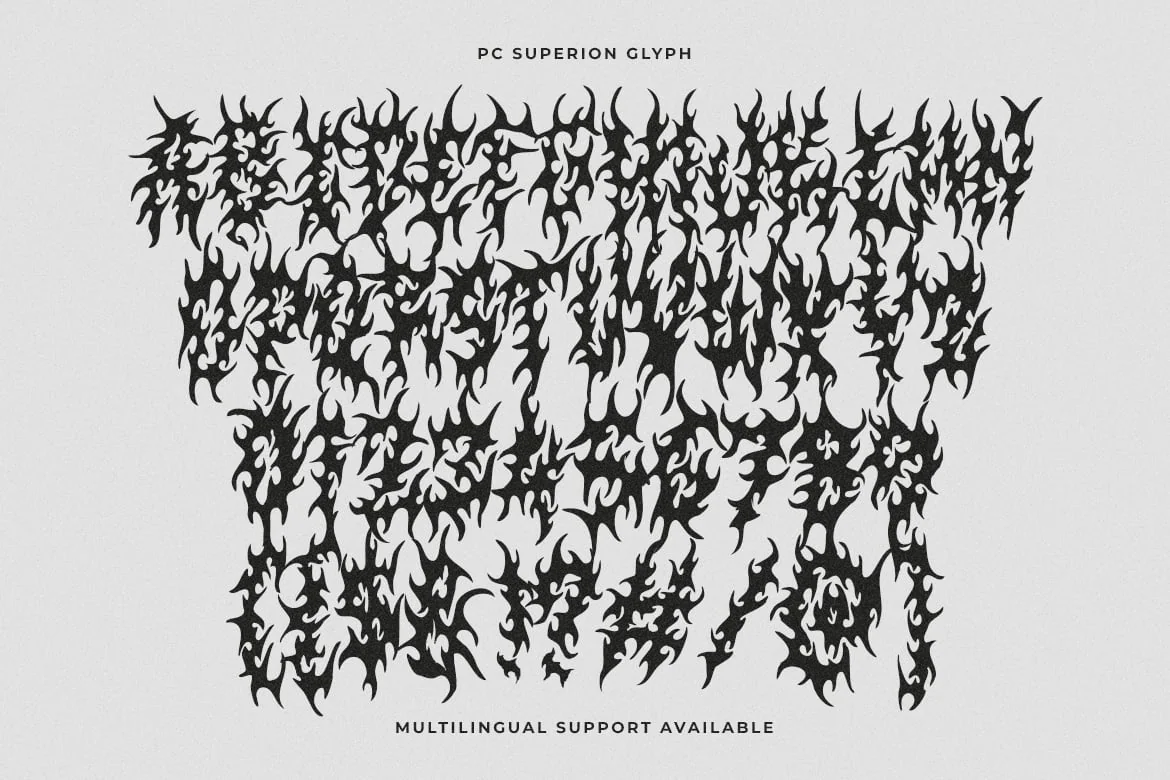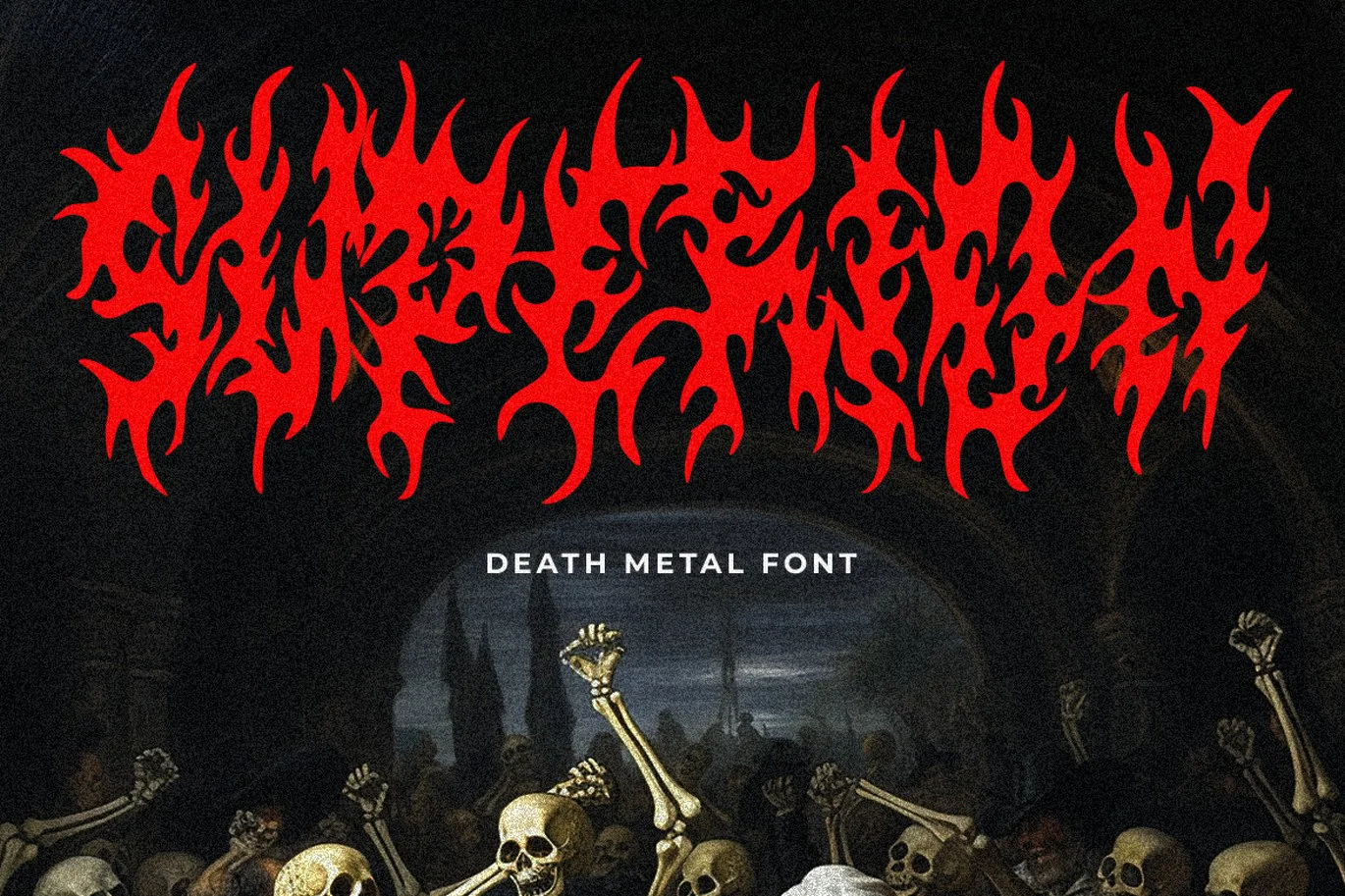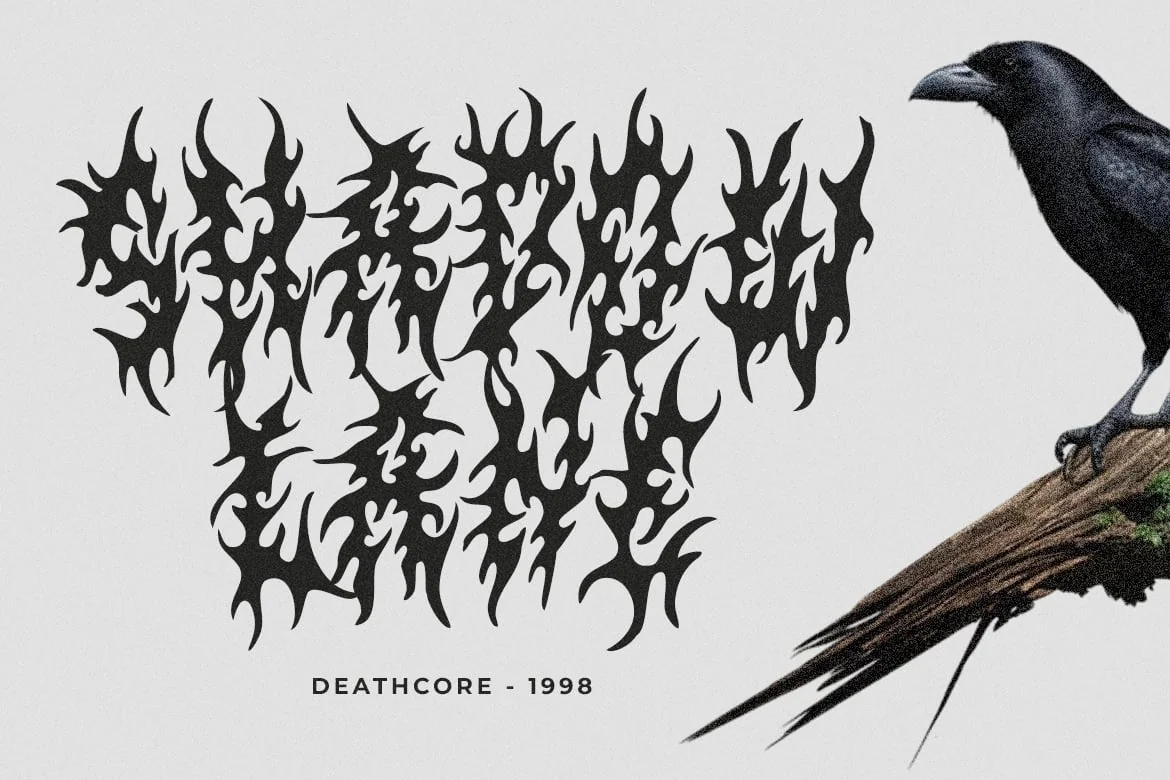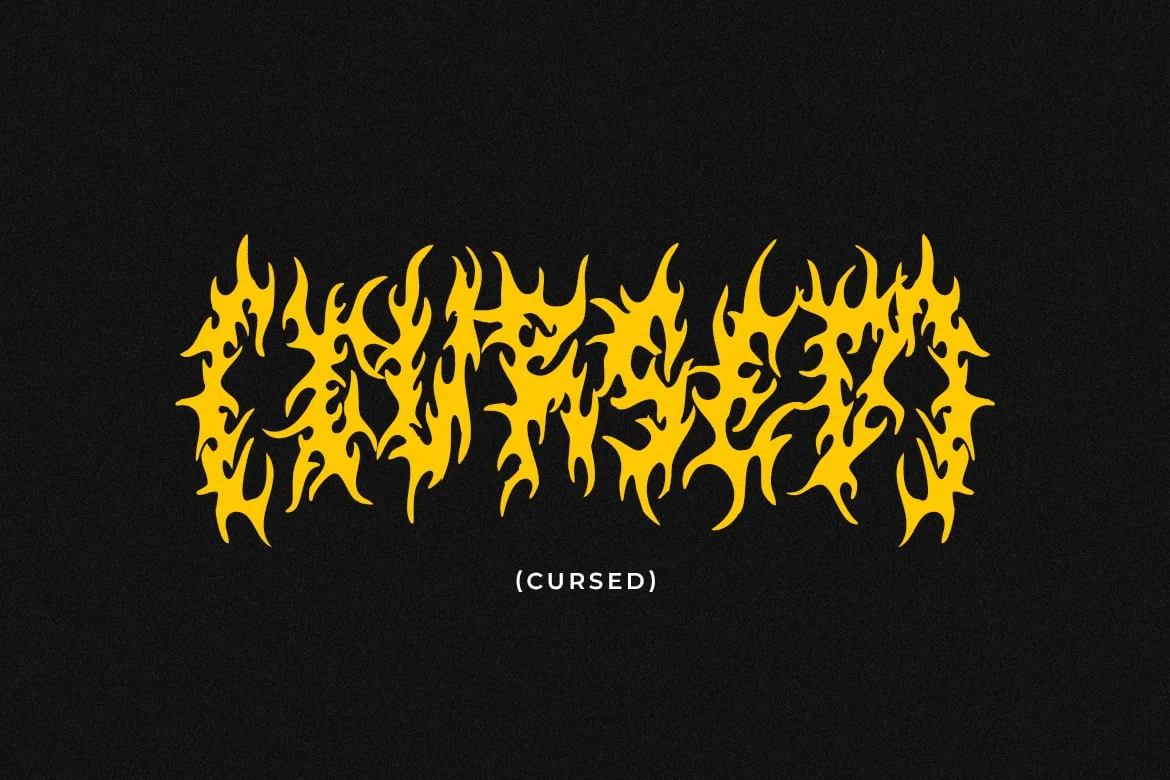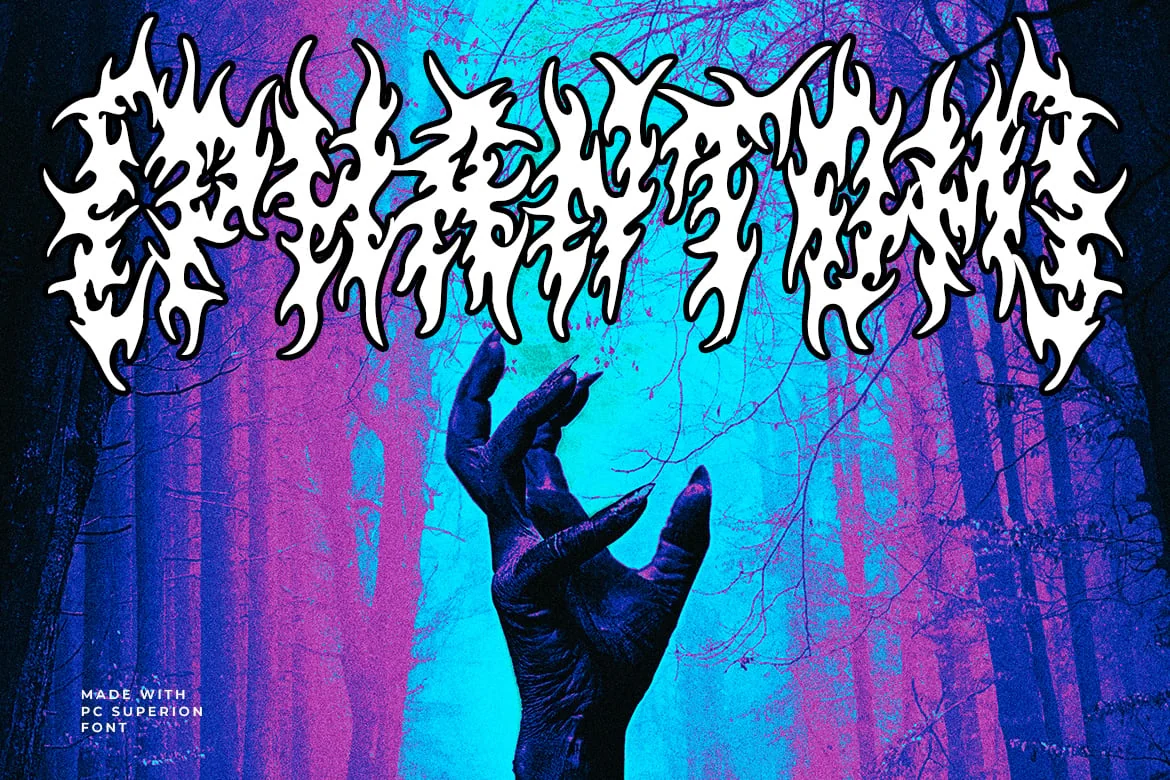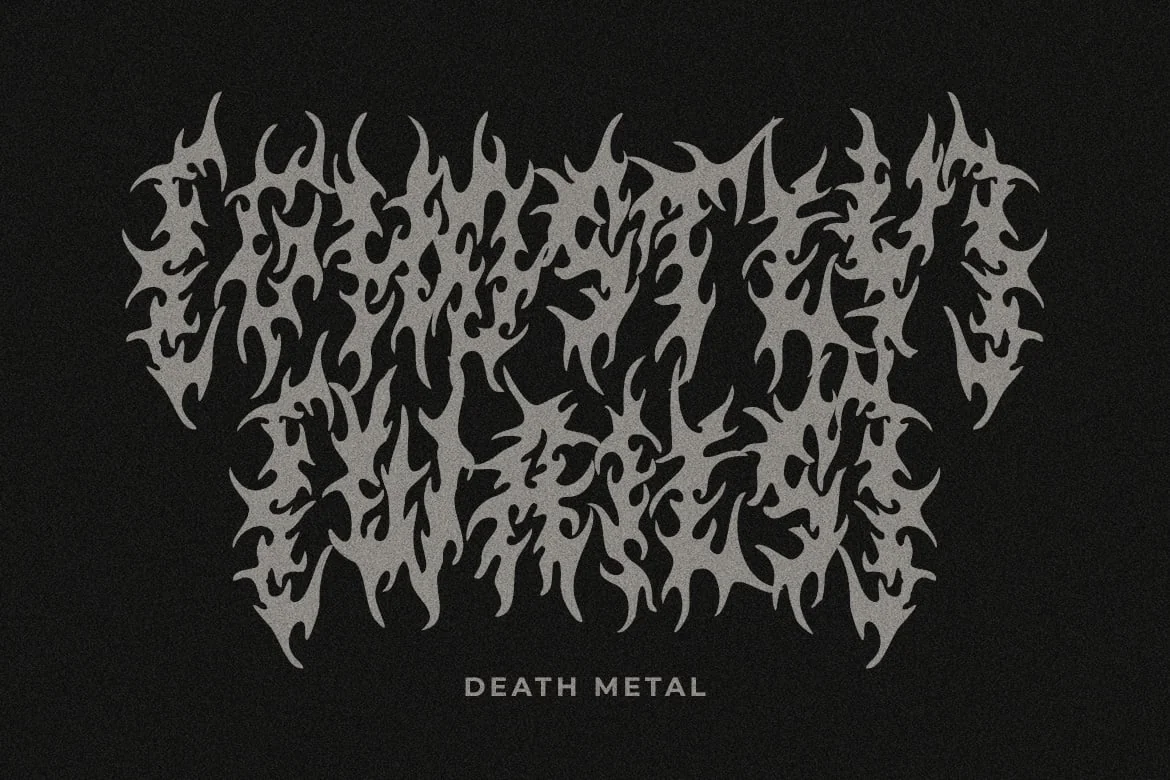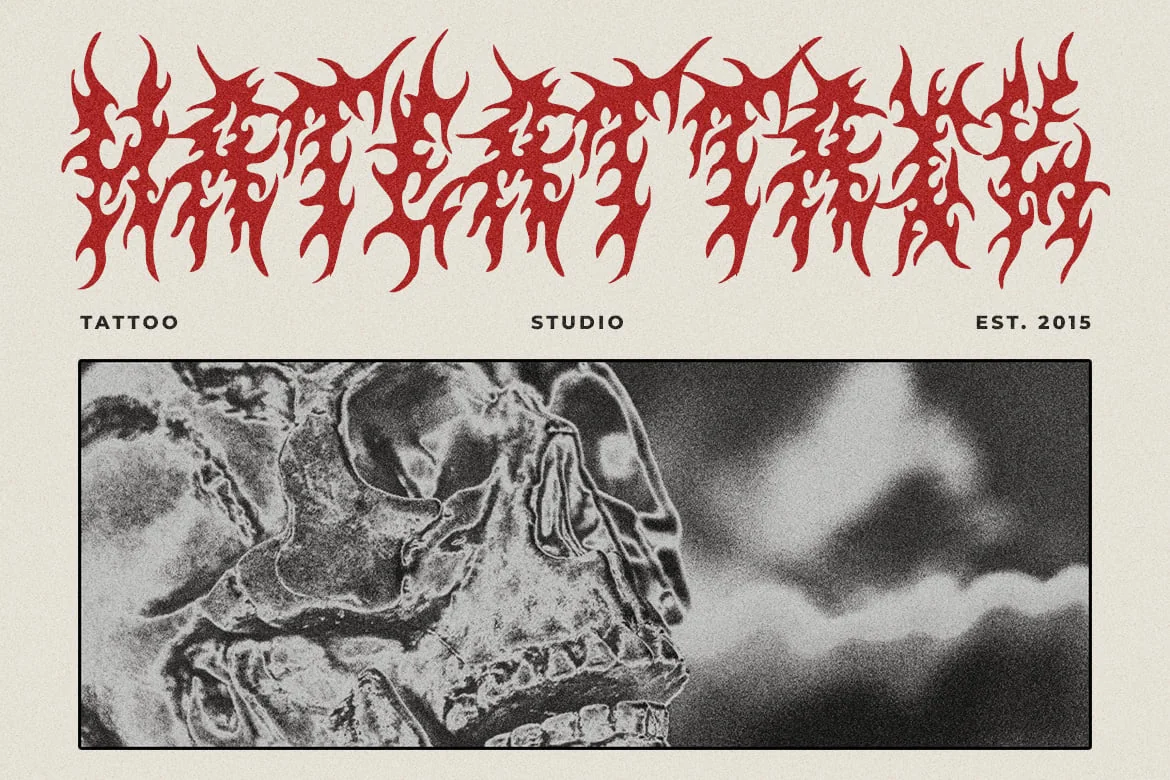
PC Superion – Death Metal Font
Dive into the darkness with PC Superion, the quintessential font for all your extreme metal needs. This font is crafted for those who crave the raw, intense aesthetics that define the death metal genre. With its jagged edges and chaotic flow, PC Superion embodies the ferocity and unrestrained power of heavy music.
- Features: Uppercase, Lowercase, Numeral, Simple Punctuation & Multilingual.